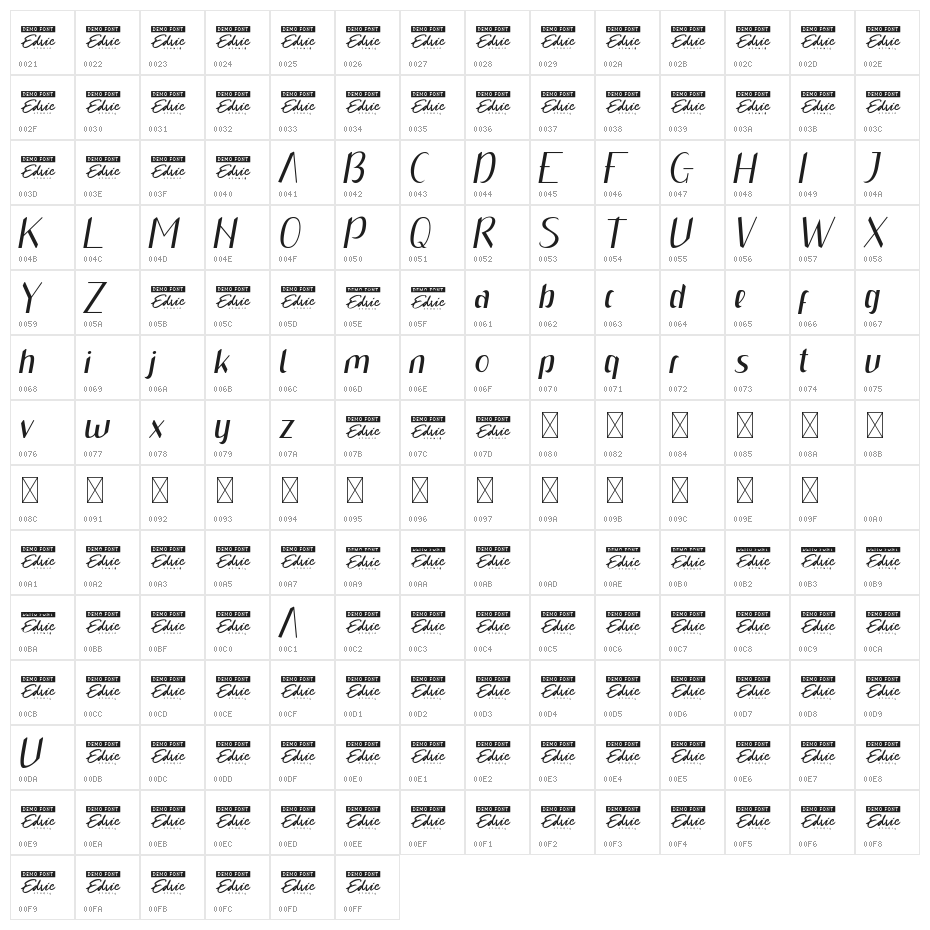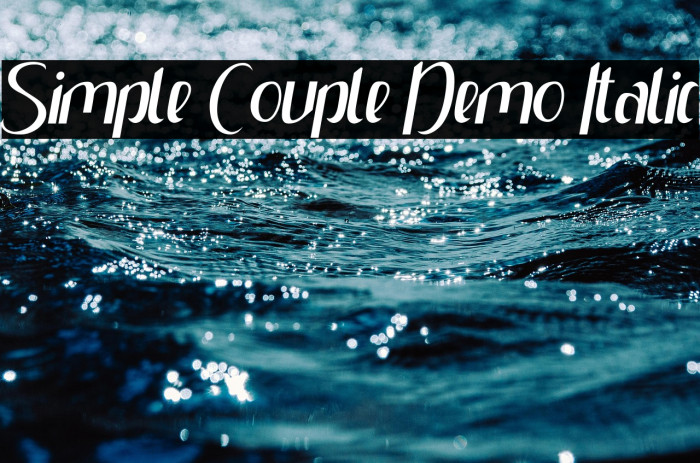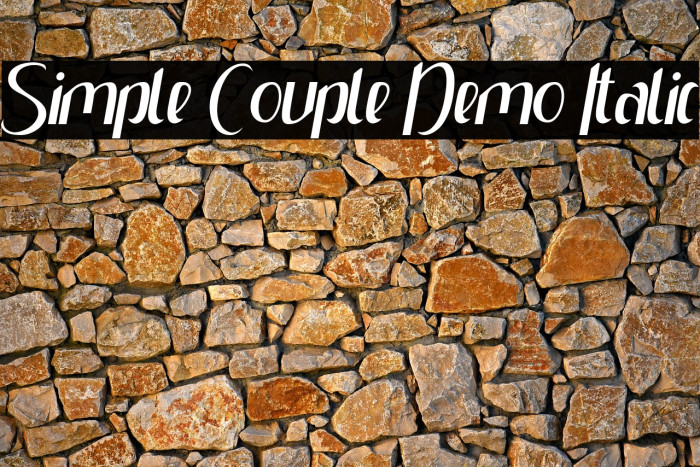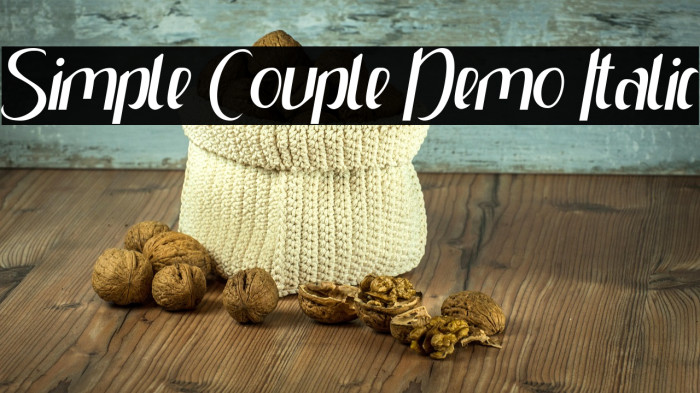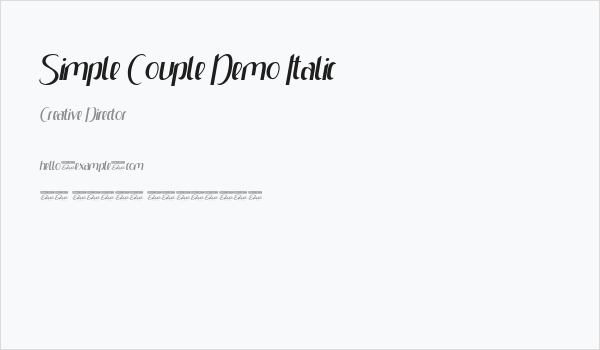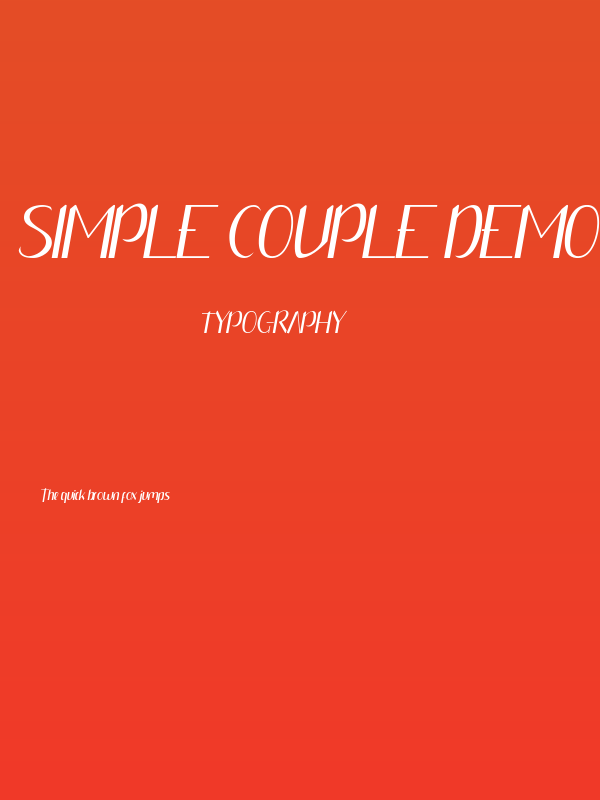
Simple Couple Demo Italic Font
Simple Couple Demo Italic Description
This font features a sleek and modern italic style with a distinct slant that adds a dynamic feel to the text. The characters are elongated with smooth curves and sharp edges, creating a sense of movement and elegance. The uppercase letters are tall and narrow, while the lowercase letters maintain a consistent flow with slightly rounded forms. The font exhibits a high contrast between thick and thin strokes, enhancing its sophisticated appearance. It is well-suited for projects that require a stylish and contemporary touch.
| Proposed Projects | Ideal for fashion magazines, luxury branding, elegant invitations, and modern advertising campaigns. |